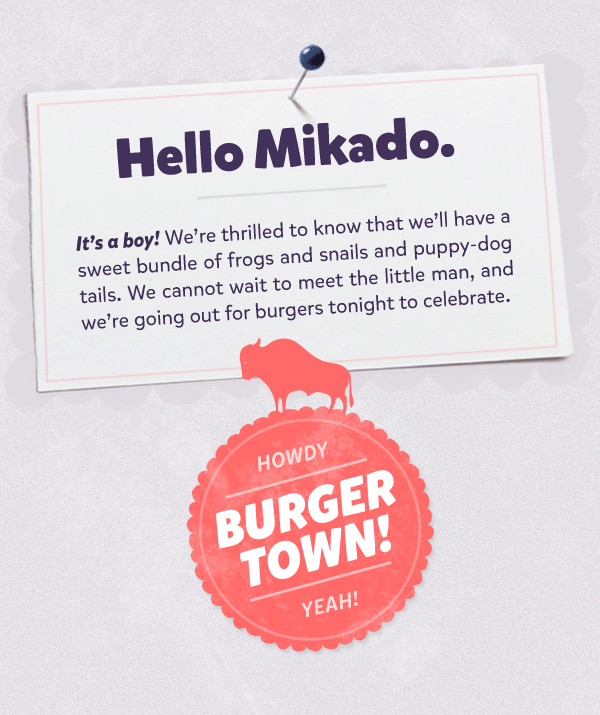
Mikado is intended to be used everywhere where a pleasant feeling should be conveyed: Games, Food, Service or Advertising. Mikado has a positive, kind of “out-of-the-box-appearance” in big sizes, but because of its straight architecture the fonts are also very legible in smaller sizes and longer texts - in print or on screen.
Looking for the perfect font for your designs? Mikado Bold DEMO is what you need, this typeface is the favorite choice of designers. Whether you're creating a stylish logo or a beautiful brochure, this font is sure to make your designs stand out from the crowd.